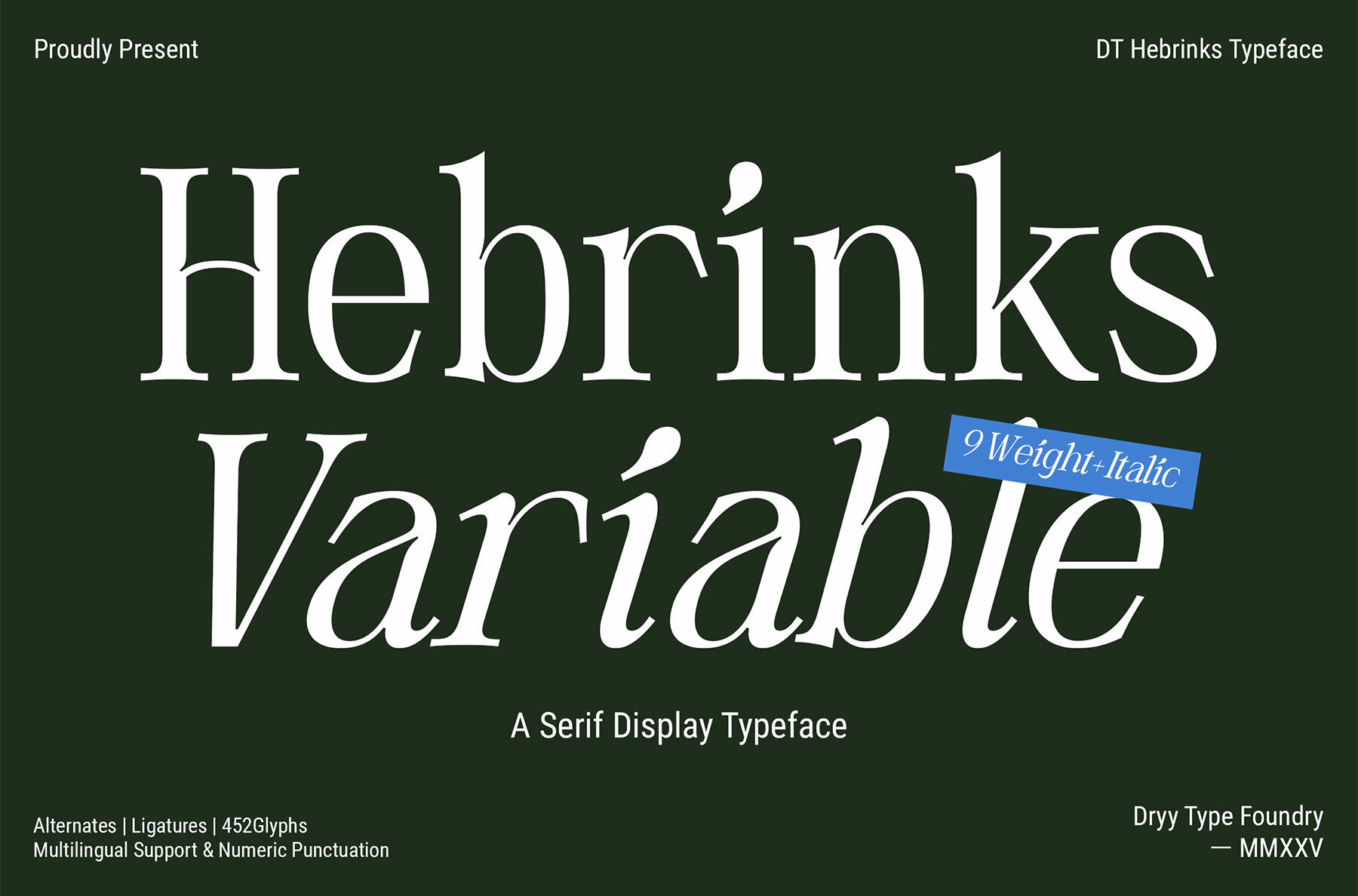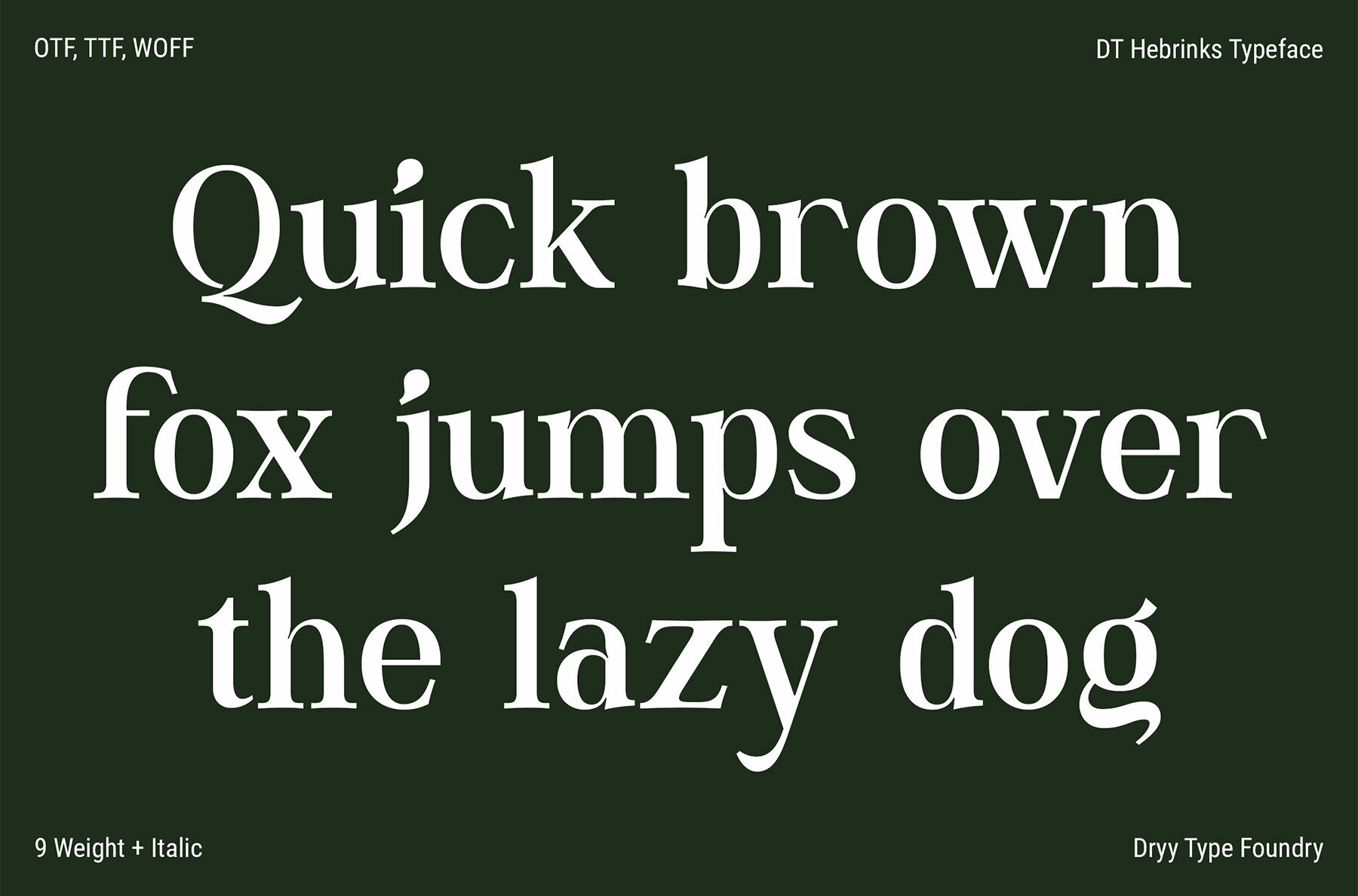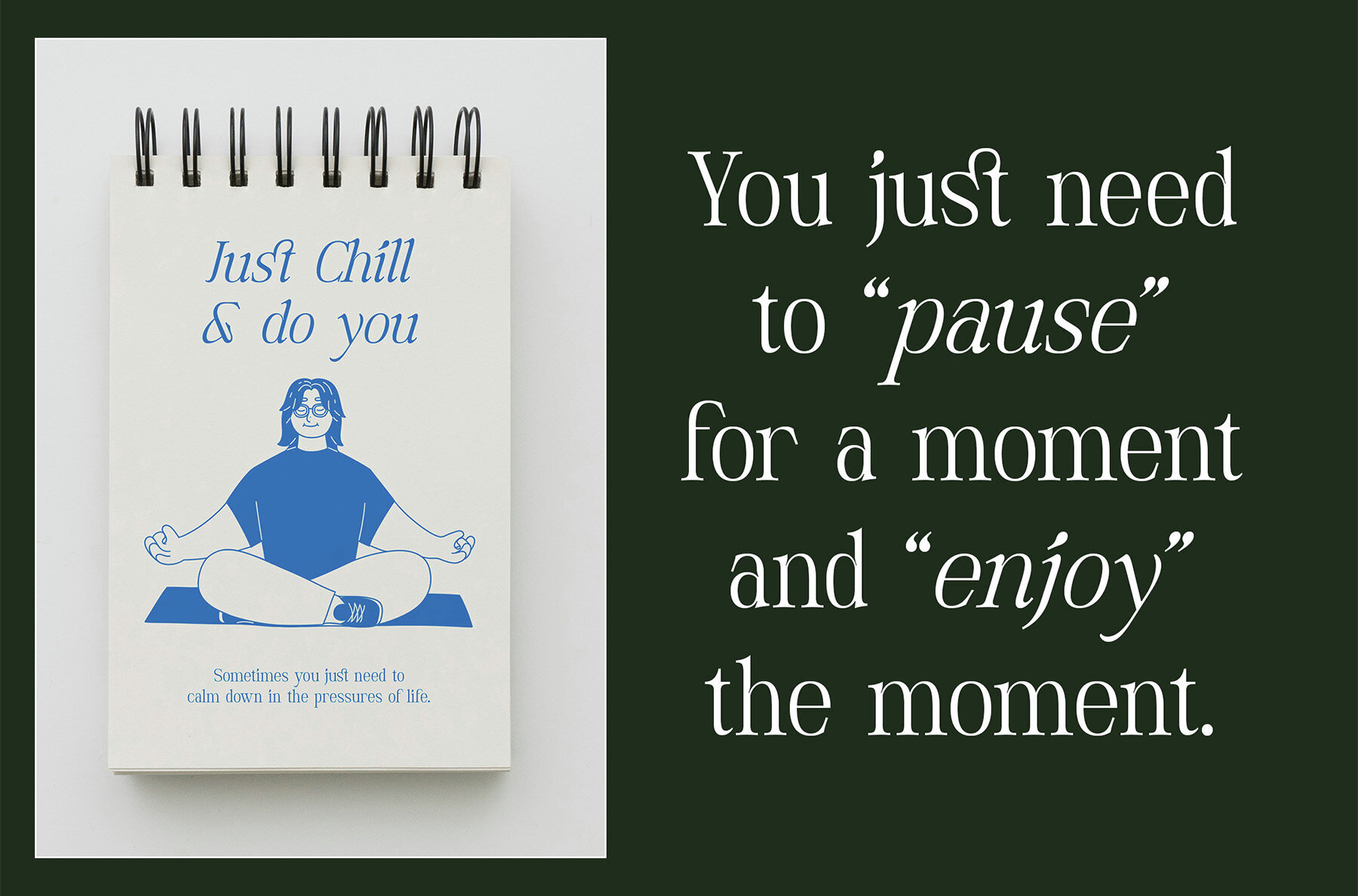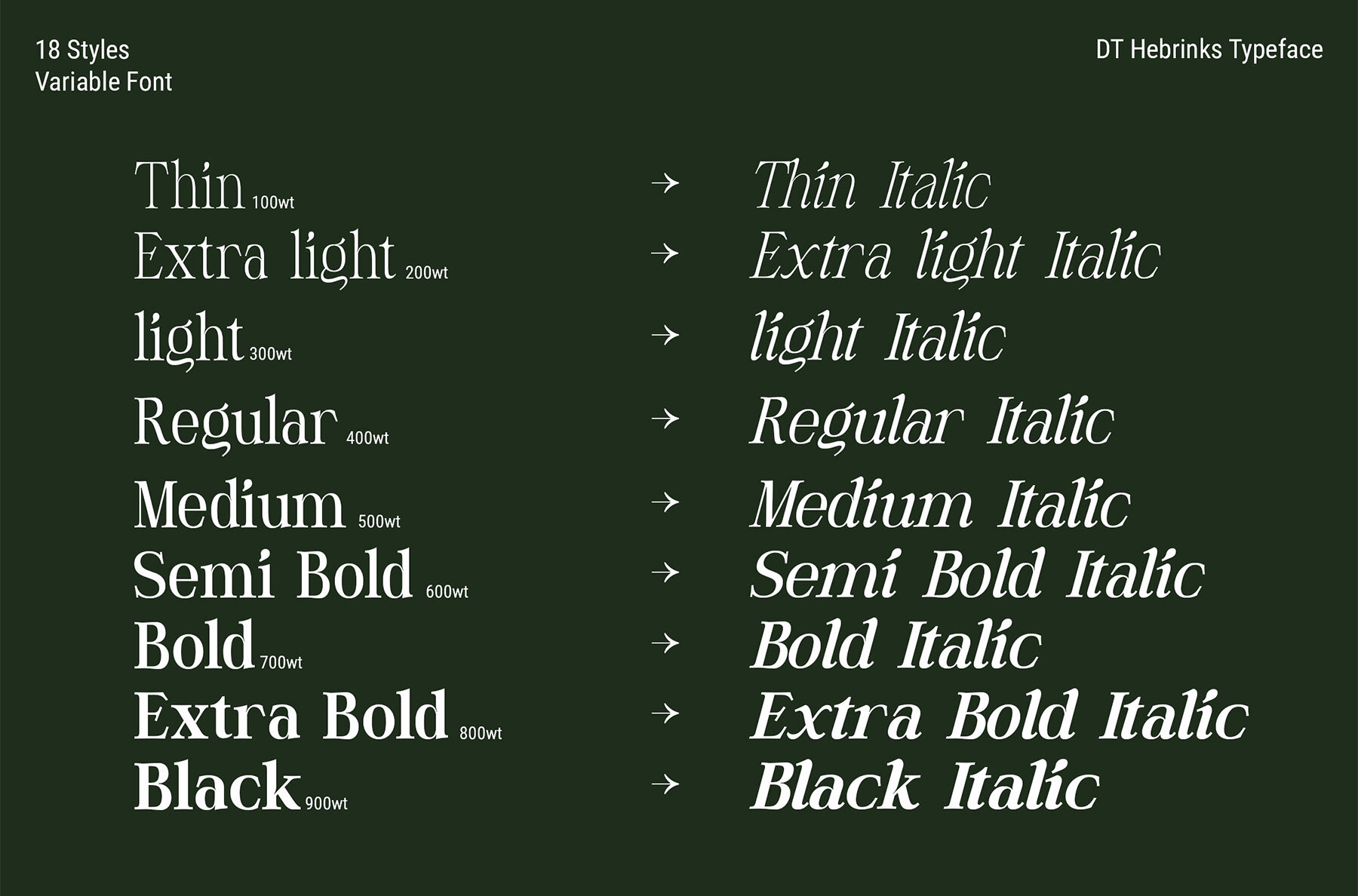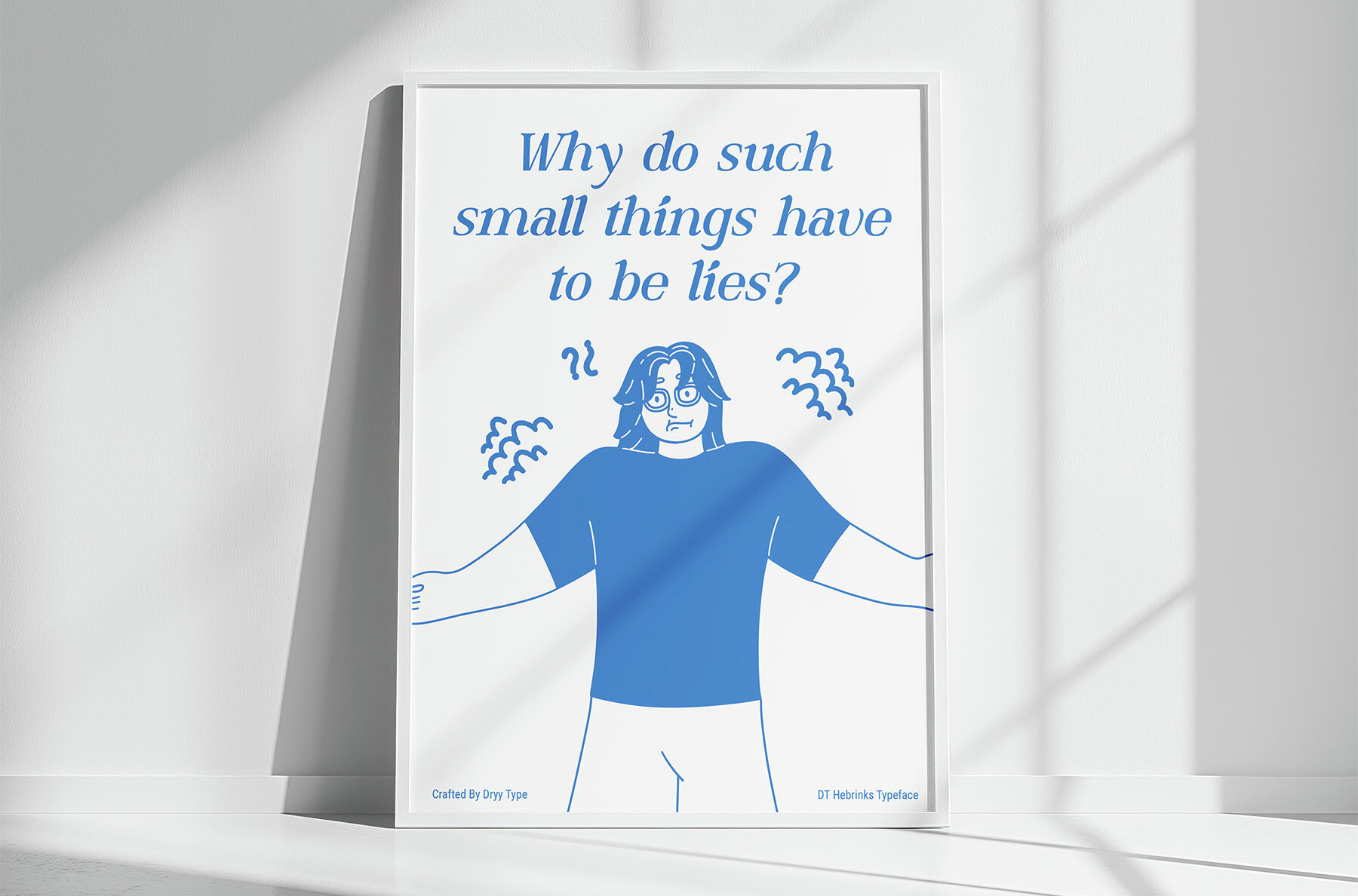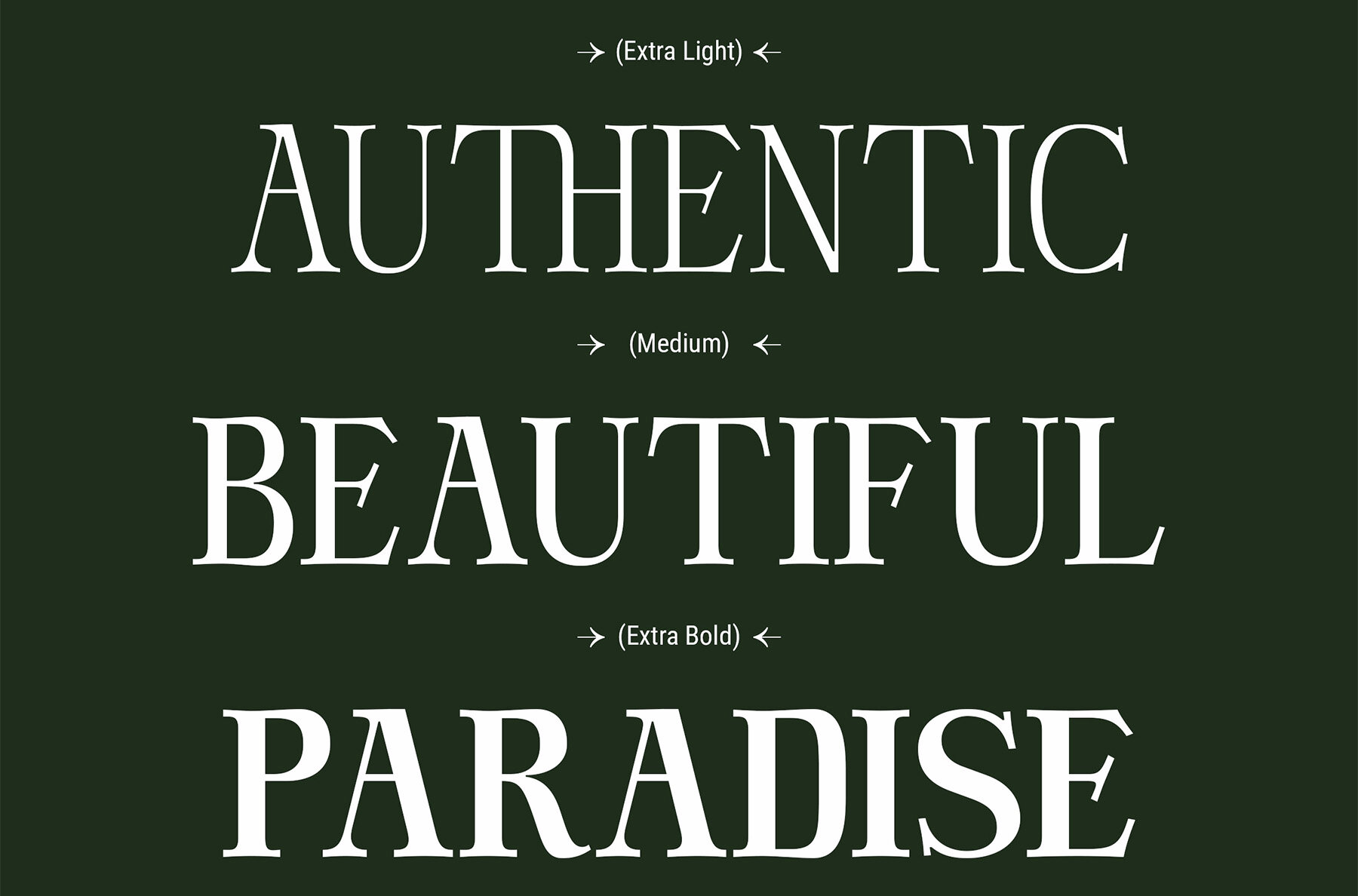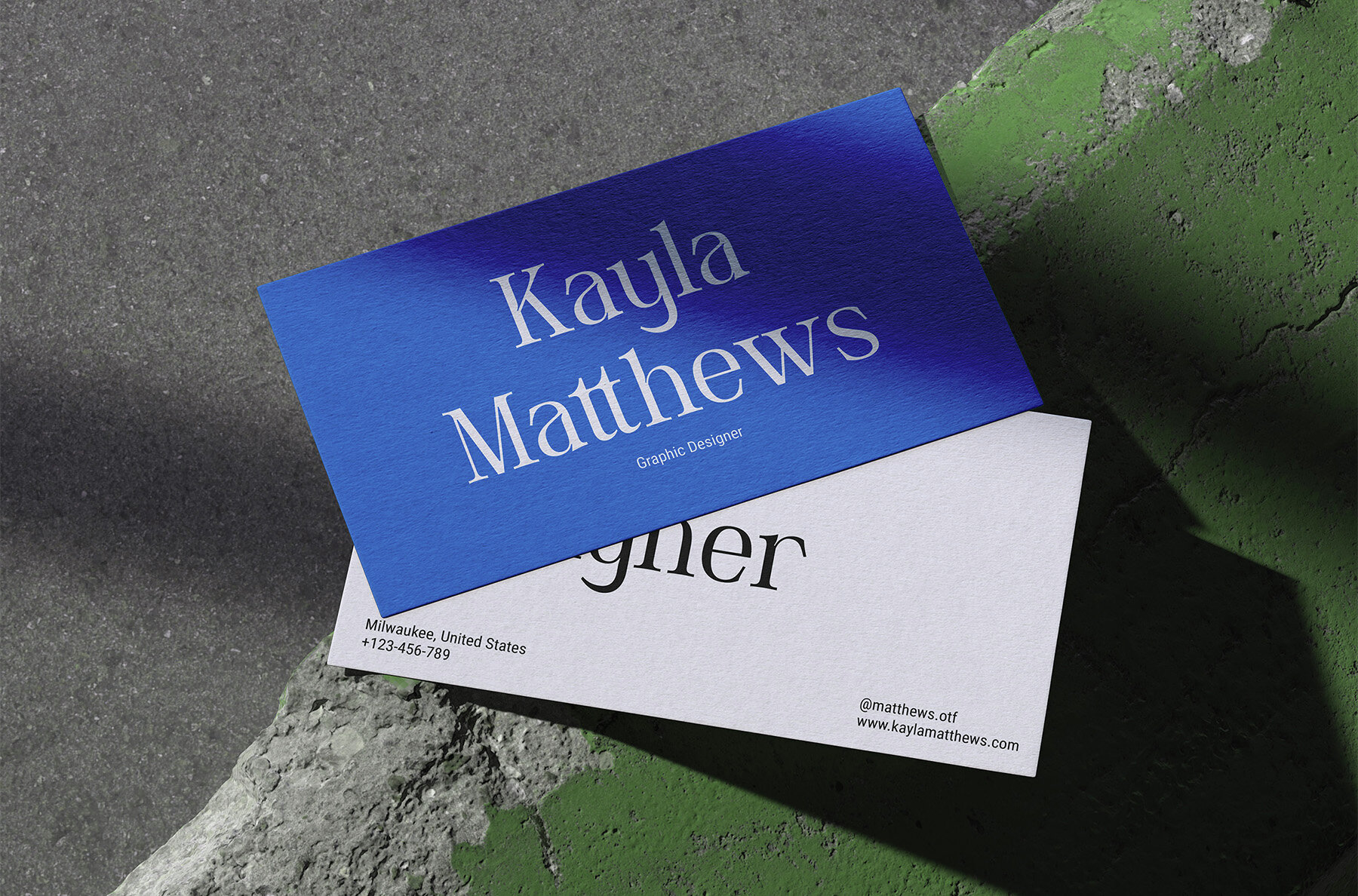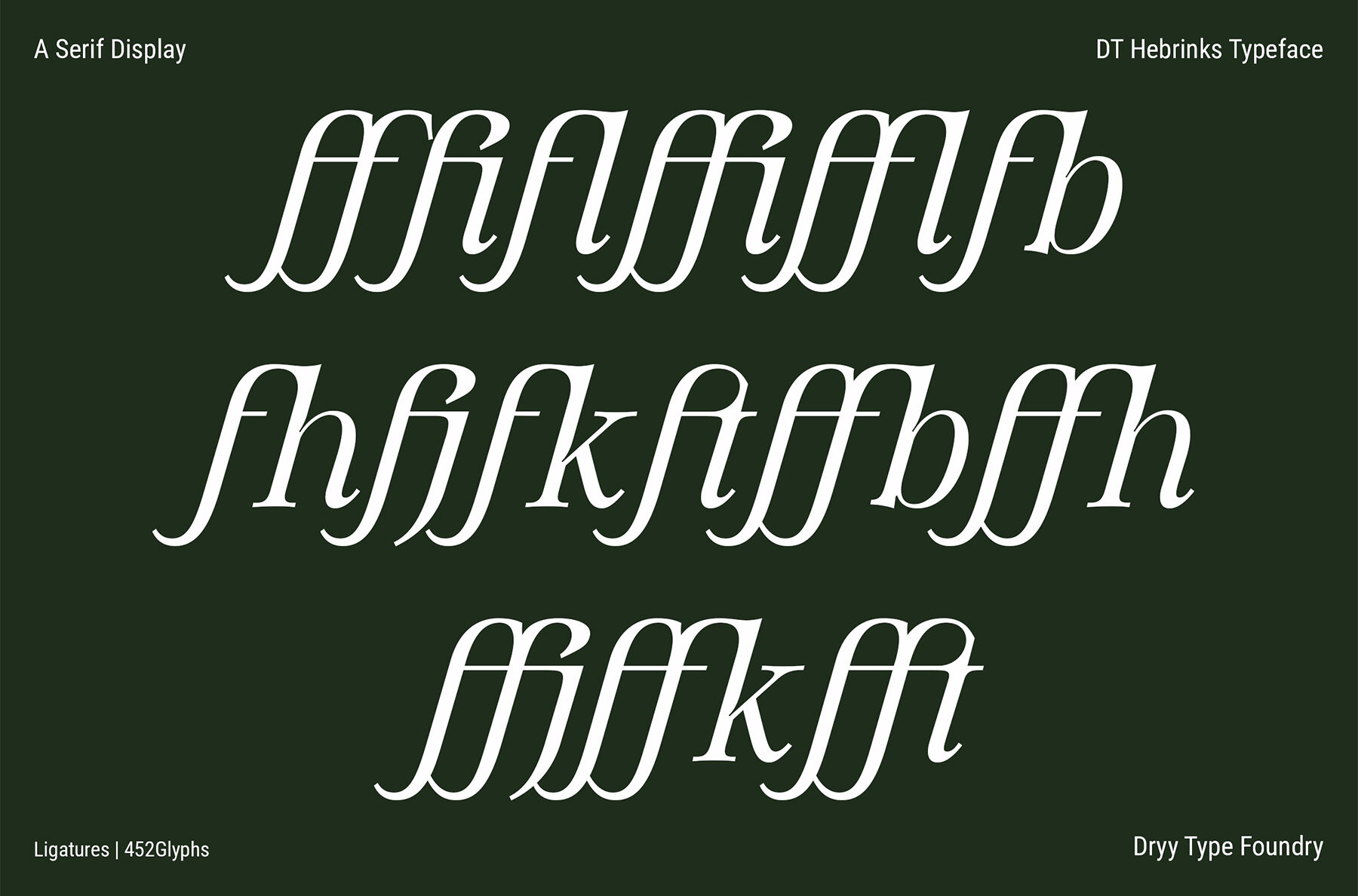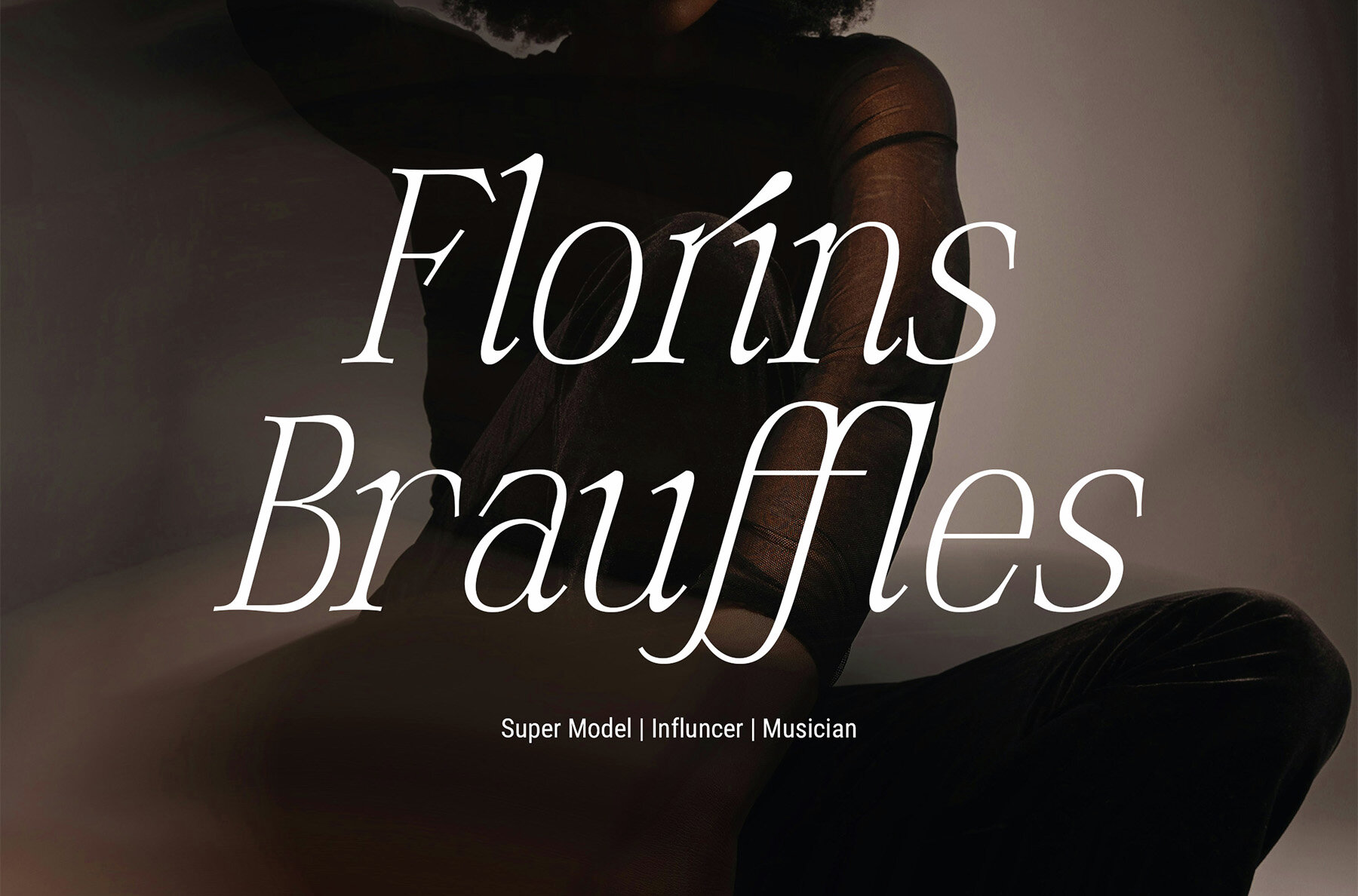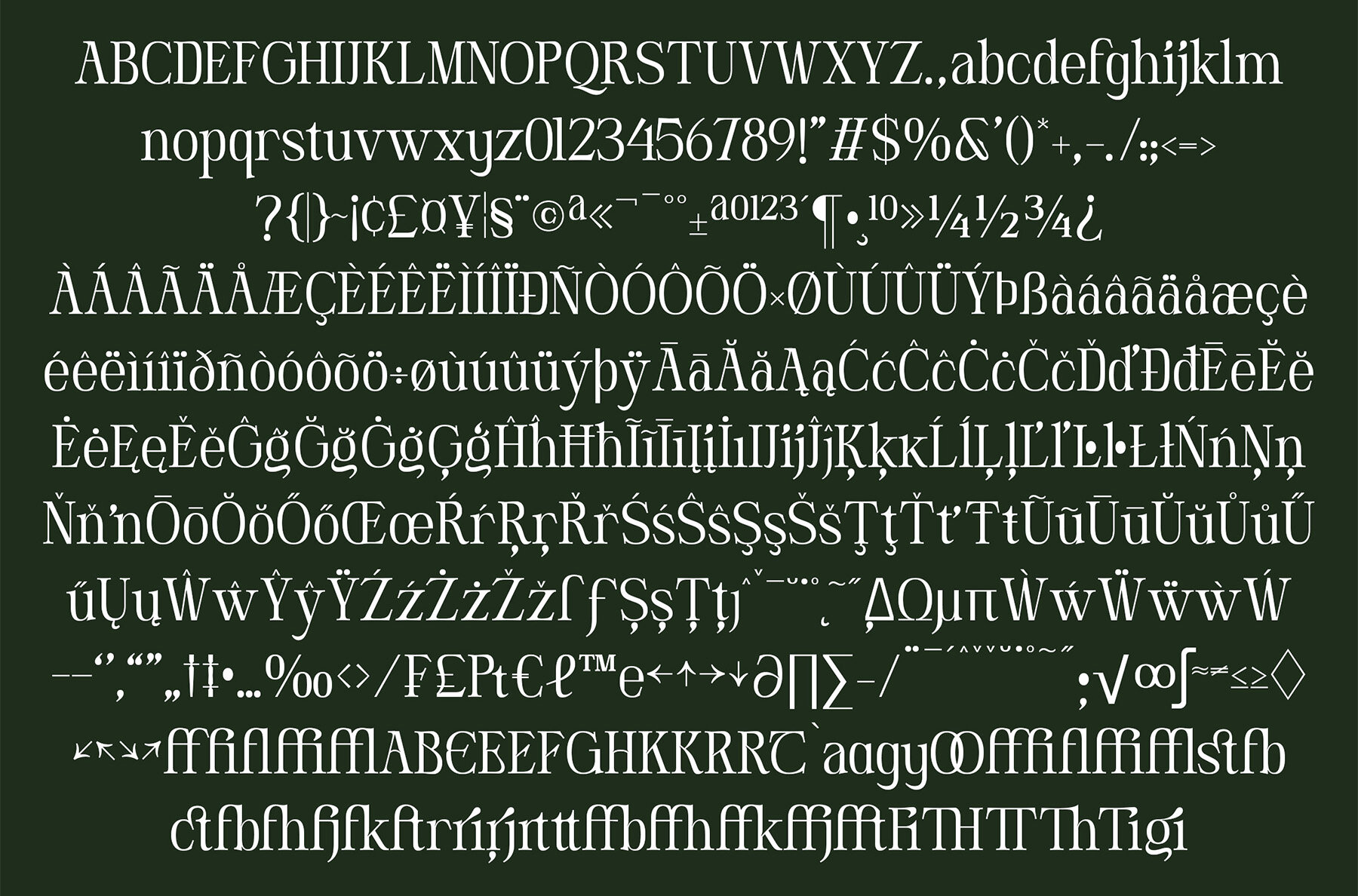
DT Hebrinks Font
DT Hebrinks is a beautiful and elegant serif font. Inspired by new beginnings that aim to enhance quality and visuals, it's crafted with dedication and time. This versatile font is suitable for various designs, enhancing them to a higher level. Add this font to your creative projects and experience the transformation!DT Hebrinks: Elegant Serif Inspired by New Beginnings